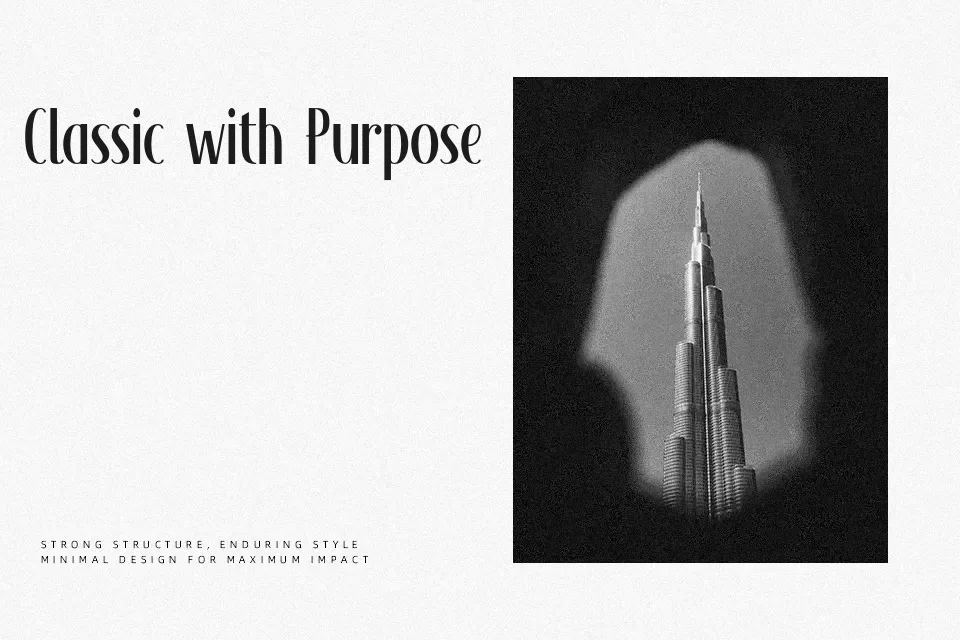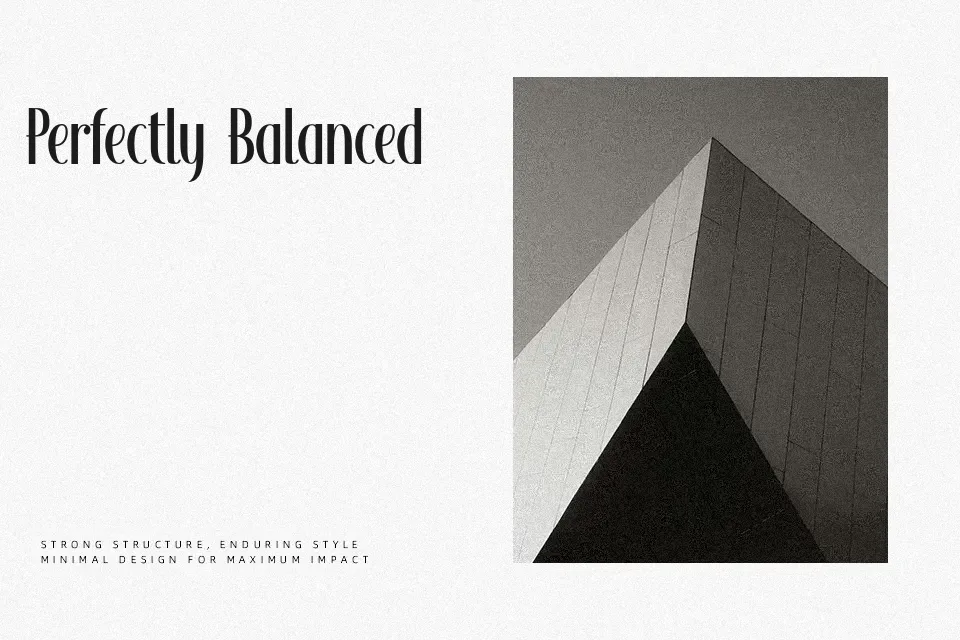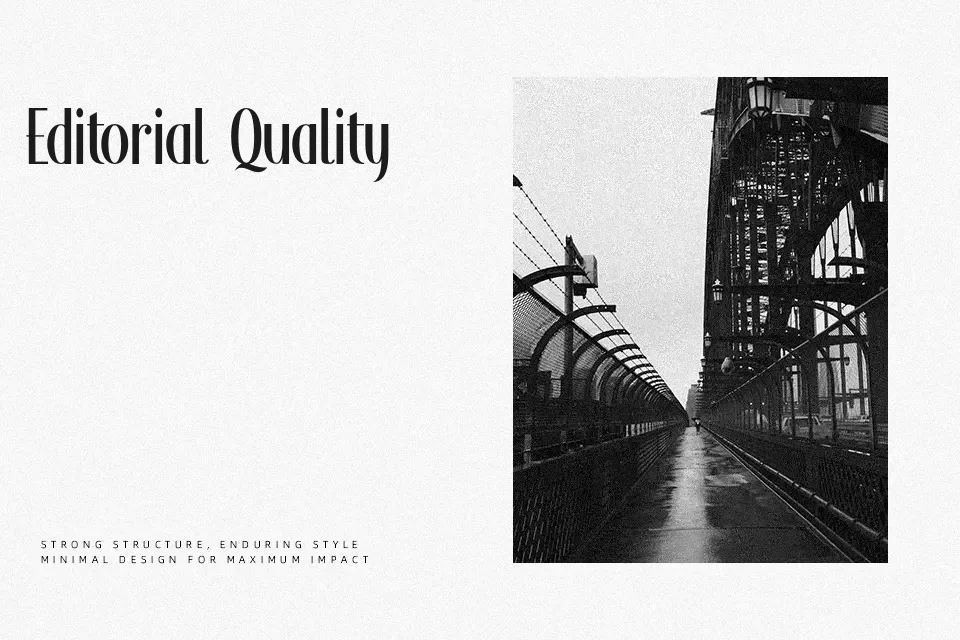
Adagietto Font
Tall, narrow letterforms and sharp contrast between thick and thin strokes give Adagietto its unmistakable vintage-editorial personality. The high x-height lends it a certain vertical tension — letters feel upright and considered rather than decorative for its own sake. It reads best at large display sizes, where its elegant stroke modulation is fully visible, making it a strong pick for book cover titles, retro-styled packaging labels, or event poster headers. That said, the condensed structure limits its versatility: it loses legibility quickly at small sizes, and its formal mood makes it a poor fit for playful or casual brand contexts. The demo version is stripped of full kerning and some glyphs, so commercial projects should budget for the paid license.
Best For:- Vintage poster and book cover headlines
– Retro product packaging labels
– Editorial magazine section titles
– Music event or concert promotional print
Not Ideal For:- Body text or any long-form reading context
– Digital UI or small-size screen usage
– Playful, casual, or youth-oriented branding
Perfect for branding, editorial, and headline, with a classic and condensed style.